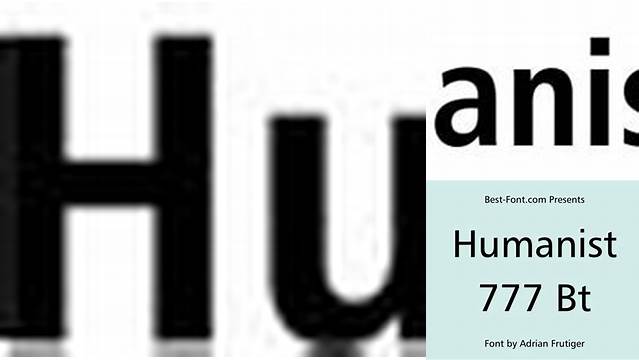
Understanding the Appeal of Humanist 777 Bold Condensed
The Humanist 777 Bold Condensed font isn't just another typeface; it's a statement. Its bold weight combined with a condensed structure gives it an immediate presence and impact. What makes it stand out is its humanist classification. Unlike more rigid, geometric sans-serifs, humanist fonts draw inspiration from handwriting, incorporating subtle variations in stroke width and more open letterforms. This results in a typeface that feels friendly, approachable, and highly readable, even in its boldest and most condensed forms. The '777' in its name often refers to a specific series or iteration, suggesting a refinement over time. When you're looking for a font that can command attention without feeling overly aggressive, or one that can pack a lot of text into a small space elegantly, this font is a serious contender. Its inherent warmth, a hallmark of humanist designs, ensures that even a bold, condensed style doesn't come across as cold or impersonal. This balance is crucial for branding, headlines, and any application where you need both impact and a touch of humanity. Think about logos, impactful posters, or even compelling website headers – the Humanist 777 Bold Condensed font is designed to deliver. Its condensed nature is a practical advantage, allowing for efficient use of space, which is a godsend in today's design landscape where every pixel and inch counts. So, before we even talk about downloading, it's worth appreciating the thoughtful design behind this particular font family. It's a well-crafted tool for designers seeking a specific aesthetic and functional benefit.
Why Choose a Bold Condensed Font Like Humanist 777?
Alright, let's talk specifics. Why would you, a savvy designer or content creator, opt for a bold condensed font like the Humanist 777? There are several compelling reasons, guys. Firstly, impact. Bold fonts, by definition, are designed to grab attention. When you combine that with a condensed form, you're essentially creating a visual powerhouse. It's perfect for headlines, subheadings, call-to-action buttons, or any text element that needs to stand out from the crowd. Imagine a busy magazine spread or a cluttered website – a bold condensed font cuts through the noise. Secondly, space efficiency. This is a big one! In a world where screen real estate is precious and print layouts need to be tight, condensed fonts are lifesavers. You can fit more information into a given width without sacrificing readability, or you can achieve a powerful, impactful look using less horizontal space. This is particularly useful for branding, where you might need a strong wordmark that doesn't dominate the entire logo area. Thirdly, modern aesthetic. Bold condensed fonts often convey a sense of modernity, urgency, and dynamism. They feel contemporary and can give your design a sharp, edgy feel. The Humanist 777, being a humanist font, brings a touch of refinement to this often stark aesthetic. It avoids the coldness that some purely geometric condensed fonts can exhibit. It strikes a balance between being assertive and being approachable. Think about its versatility – it can work for tech startups needing a strong visual identity, for event posters that need to convey excitement, or even for editorial design that aims for a sophisticated yet punchy feel. The inherent structure of a condensed font also lends itself to strong typographic hierarchies, making it easier for your audience to navigate through information. It's a functional choice as much as it is an aesthetic one, offering practical solutions for designers facing common layout challenges. The boldness ensures legibility from a distance, while the condensed nature allows for dense information display without overwhelming the viewer. It's a true workhorse font for many applications.
The Benefits of Humanist Typography
Now, let's unpack the 'humanist' part of the Humanist 777 Bold Condensed font. This is where the magic truly happens, guys. Humanist fonts are distinct because they are inspired by the calligraphy and handwriting of the past. Unlike the more geometric or mechanical sans-serifs, humanist typefaces possess a certain warmth and organic quality. You'll often notice subtle variations in stroke width, slightly irregular curves, and open apertures (the openings in letters like 'c' or 'e'). These characteristics make humanist fonts incredibly easy on the eyes. They feel more natural and less rigid, which translates to excellent readability, especially for longer texts. Even in a bold condensed format like Humanist 777, these humanist traits shine through. The boldness provides the necessary visual weight, while the condensed structure ensures efficiency, but the underlying humanist design keeps it from feeling sterile. This makes it a fantastic choice for branding that needs to be both strong and trustworthy, or for web design where user experience and readability are paramount. The openness of the letterforms aids legibility on screens, a crucial factor in digital design. Think about the feeling you get when reading a handwritten note versus a typed letter – there's an inherent connection in the handwritten form. Humanist fonts aim to capture some of that connection in a digital or printed medium. They bridge the gap between formal typography and the natural flow of human communication. This makes them particularly effective for brands that want to convey approachability, authenticity, and a personal touch. They often feel more sophisticated and less generic than some of their counterparts. The subtle nuances in their construction can add a layer of depth and character to your designs, making them feel more crafted and intentional. This is why many successful brands and publications return to humanist typefaces time and again – they offer a timeless appeal that resonates with audiences on a deeper level. The subtle irregularities prevent the eye from becoming bored, promoting sustained engagement with the text.
Best Practices for Using Bold Condensed Fonts
Alright, you've got your Humanist 777 Bold Condensed font, and you're ready to unleash its power. But how do you use it like a pro, guys? Let's talk best practices. First off, don't overdo it. Bold condensed fonts are attention-grabbers, so use them strategically. They're fantastic for headlines, subheadings, or short, impactful phrases. Think of them as your visual exclamation points. Using them for large blocks of body text is generally a no-go; they can become difficult to read and fatiguing for the eyes. The condensed nature means letters are packed closely together, and the boldness adds even more visual density. For body copy, opt for a lighter weight and a more standard width from the same font family if available, or choose a complementary, highly readable typeface. Secondly, establish hierarchy. This font is perfect for creating strong typographic hierarchy. Use its bold, condensed nature for your main titles and headings to draw the reader in. Then, use lighter weights, different styles, or even a completely different but compatible font for supporting text. This contrast helps guide the reader's eye through your content logically. Thirdly, consider the context. Where will this font be seen? On a giant billboard? A tiny mobile app notification? A sleek website header? Its effectiveness changes with scale and medium. The Humanist 777 Bold Condensed font works wonders for print headers, posters, and digital banners where its impact can be fully appreciated. For smaller screens or less critical text, you might need to be more judicious. Always test your design at different sizes to ensure legibility and aesthetic balance. Finally, pair it wisely. This font can be quite dominant. Pair it with simpler, more neutral fonts for body text to let it shine without creating visual chaos. A clean, legible sans-serif or even a classic serif could work well as a companion. Avoid pairing it with other overly decorative or bold fonts, as this can lead to a cluttered and unprofessional look. Remember, the goal is impact and clarity, not a visual shouting match. Use its power judiciously, and you'll elevate your designs significantly.
Pairing Humanist 777 Bold Condensed with Other Fonts
Okay, so you've got this powerhouse font, the Humanist 777 Bold Condensed, and you're wondering what other fonts can play nice with it, right guys? This is crucial because a dominant font like this needs a good supporting cast. The general rule of thumb is to pair it with something that offers contrast but complements its inherent characteristics. Since Humanist 777 is bold and condensed, you'll want to look for fonts that are typically lighter in weight and perhaps wider or have a more standard width. This creates a pleasing visual hierarchy and prevents your design from feeling too cramped or heavy. A great option would be a clean, legible sans-serif font with a lighter weight. Think of fonts like Open Sans Light, Lato Regular, or Montserrat Light. These provide excellent readability for body text and don't compete with the boldness of Humanist 777. They offer a calm counterpoint to the font's strong presence. Another solid choice is a classic serif font. A well-chosen serif can add a touch of elegance and sophistication, grounding the modern feel of the bold condensed sans-serif. Consider pairings with fonts like Merriweather, Georgia, or even a classic like Garamond (in a lighter weight, of course). The contrast between sans-serif and serif can be very effective in creating visual interest and establishing clear distinctions between headlines and body copy. When selecting your pairing font, always consider the overall mood and purpose of your design. If you're going for a modern, techy vibe, stick with clean sans-serifs. If you're aiming for a more traditional or editorial feel, a serif might be the better choice. Crucially, ensure the x-heights and ascender/descender proportions work harmoniously. You don't want a pairing where one font looks dwarfed or disproportionately tall compared to the other. Test, test, test! View your pairings at actual size and in context to see how they interact. The goal is for Humanist 777 Bold Condensed to make a statement, while its partner provides clarity and readability, ensuring your message gets across effectively and elegantly. It's all about finding that sweet spot of balance and contrast.
Creative Applications of Humanist 777 Bold Condensed
So, where can you sprinkle this awesome Humanist 777 Bold Condensed font to make your designs pop, guys? The possibilities are pretty vast! Let's brainstorm some creative applications. Logos and Branding: This font is a natural fit for creating strong, memorable logos. Its bold, condensed nature means it can make a big impact even in small sizes, perfect for app icons or favicons. For brands that want to project confidence, modernity, and a touch of sophistication, this font is a winner. Think tech startups, financial institutions, or even high-end fashion labels that want a strong typographic mark. Headline Design: Obviously, headlines are its bread and butter. Use it for website banners, magazine covers, newspaper headlines, or any place you need immediate visual punch. Its condensed form allows you to fit impactful headlines into tight spaces, which is a lifesaver for editorial design. Poster and Flyer Design: Need to grab attention from across the room? This font is your go-to. It’s perfect for event posters, concert flyers, or promotional materials where you need to convey energy and excitement quickly. Its boldness ensures your key message is seen. Packaging Design: For product packaging, especially for bold consumer goods or items that need a strong shelf presence, Humanist 777 Bold Condensed can provide that striking visual element. It can work well for specific product names or feature call-outs. App UI Elements: In user interfaces, especially for buttons, navigation elements, or status indicators where space is limited and clarity is key, this font can be incredibly effective. Its bold weight ensures readability even on smaller screens, while its condensed form saves precious UI real estate. Infographics and Data Visualization: While not ideal for extensive body text, it can be used effectively for titles, labels, and key data points within infographics to draw attention to critical information. Its structured appearance lends itself well to presenting data clearly. Social Media Graphics: Create eye-catching social media posts with bold headlines and calls to action using this font. It can help your content stand out in a crowded feed. The key is to use it where you need impact and legibility in a compact form. It’s a versatile tool that, when used thoughtfully, can significantly enhance the visual appeal and effectiveness of your designs across a wide range of media. Just remember its strengths: boldness and condensed form, and apply it where those attributes will have the most impact.
The Impact of Boldness in Typography
Let's talk about boldness in typography, specifically concerning the Humanist 777 Bold Condensed font, guys. When we talk about bold weight, we're essentially referring to the thickness of the strokes that make up the letterforms. A bold font is significantly thicker than its regular or light counterparts. This increased weight serves a very specific purpose: to create emphasis and draw the reader's attention. Think of it as the typographic equivalent of shouting – not in an obnoxious way, but in a way that commands notice. The impact of boldness is multifaceted. Firstly, it enhances readability in certain contexts. While a very light font might be elegant, it can be hard to read, especially on lower-resolution screens or from a distance. A bold font, on the other hand, has more visual presence, making the letters clearer and more distinct. This is why bold is often used for headlines, subheadings, and important keywords within a text – it tells the reader, "Hey, pay attention to this part!" Secondly, boldness adds visual weight and impact to a design. A layout composed entirely of regular or light fonts can sometimes feel a bit flat. Introducing bold elements, like the Humanist 777 Bold Condensed, injects energy and dynamism into the composition. It creates contrast and helps establish a clear visual hierarchy, guiding the user's eye through the information. Thirdly, boldness can convey strength, authority, and seriousness. Depending on the typeface, a bold font can feel robust, dependable, and assertive. The Humanist 777, being a humanist font, balances this strength with a degree of warmth, preventing it from feeling overly aggressive. The combination of boldness and the condensed nature further amplifies this impact, making it incredibly effective for applications where a strong, clear message is paramount. However, it's important to use boldness judiciously. Overuse can lead to a design that feels overwhelming, aggressive, and difficult to digest. Like using a loud voice in a quiet library, too much boldness can be counterproductive. The skill lies in using its power strategically to highlight key information and create a compelling visual narrative. It's a powerful tool in your typographic arsenal.
Exploring the Condensed Nature of Typefaces
Now, let's zero in on the 'condensed' aspect of the Humanist 777 Bold Condensed font, guys. What does 'condensed' actually mean in the world of typography? Simply put, it means the letterforms are narrower, or 'squashed', compared to their standard counterparts. This is different from 'narrow', which might imply a font designed from the ground up with narrow proportions, whereas 'condensed' often refers to a specific variation within a font family. The primary benefit of a condensed typeface is space efficiency. In today's design world, where every pixel and every inch matters, condensed fonts are invaluable. They allow you to fit more text into a smaller horizontal space without sacrificing legibility as dramatically as simply shrinking a standard-width font would. This makes them ideal for headlines, particularly in print media like newspapers and magazines where space is often at a premium. Think about fitting a long headline into a narrow column – a condensed font makes this possible. On websites and apps, condensed fonts can be used for navigation bars, sidebars, or other areas where horizontal space is limited. They can also be used purely for aesthetic reasons. A row of condensed letters can create a strong, linear, and impactful visual effect, often used in titling or branding to convey a sense of speed, modernity, or urgency. However, there's a caveat. Highly condensed fonts, especially when combined with boldness, can become challenging to read in large quantities. The tight spacing between letters (kerning) and the narrow forms can lead to visual fatigue if used for body text. That's why fonts like Humanist 777 Bold Condensed are best reserved for display purposes – headlines, titles, short bursts of text where their unique characteristics can be appreciated without hindering readability. The 'condensed' quality, combined with the 'bold' weight, creates a font that is both commanding and economical with space. It's a deliberate design choice that offers significant functional and aesthetic advantages when applied correctly. It’s a powerful tool for making a statement in a confined area.
Understanding Font Licensing: Free vs. Commercial Use
This is super important, guys, especially when you're looking for that Humanist 777 Bold Condensed font free download. Not all free downloads are created equal! Understanding font licensing is key to avoiding legal trouble and respecting the work of type designers. Broadly, fonts fall into categories based on their licensing: Free for Personal Use: This is common. You can download and use these fonts for your personal projects – think your blog, your social media posts for fun, or school assignments. However, using them for a business, a client project, or anything that generates revenue is typically prohibited. Free for Commercial Use: These are golden! Fonts licensed for commercial use can be used in almost any project, including logos, websites, marketing materials, and products for sale. Often, foundries offer a selection of these for free to showcase their work or for promotional purposes. Commercial Fonts (Paid): Most high-quality, professional fonts require a purchase. Licenses vary – you might pay for a desktop license (for use on a specific number of computers), a webfont license (for use on a website), an app license, or an e-pub license. These are typically the most robust and come with full support. When you find a 'free download': Always check the license. Look for a file named license.txt or readme.txt within the font download. Check the font's page on the foundry's website or the download site (like Font Squirrel, DaFont, etc.). If it just says 'free', assume it's for personal use only unless explicitly stated otherwise. Sites like Font Squirrel are great because they often filter for commercially usable fonts, but it's still wise to double-check the source foundry's license. Using a font commercially without the proper license is copyright infringement. It can lead to hefty fines and damage your reputation. So, before you dive into using that Humanist 777 Bold Condensed on your new business venture's website, make sure you've got the green light from the license. If it's only free for personal use, consider purchasing a commercial license or finding an alternative font that is free for commercial use. It's a small price to pay for peace of mind and ethical design.
Alternative Bold Condensed Fonts You Might Like
Okay, so maybe you're hunting for that Humanist 777 Bold Condensed font free download, but you're also open to exploring other cool options, right guys? Sometimes, the exact font you're looking for isn't available for free, or maybe you just want a few more tricks up your sleeve. Luckily, the world of bold condensed fonts is vast and exciting! Here are a few alternatives that offer a similar vibe and might be available for free or have affordable commercial licenses: Oswald: This is a super popular, versatile, and robust bold condensed sans-serif that's readily available on Google Fonts – totally free for commercial use! It has a slightly more utilitarian feel than a humanist font but offers excellent readability and impact for headlines and short texts. Bebas Neue: Another classic on the free font scene, Bebas Neue is a favorite for its clean lines and strong, condensed appearance. It's purely a display font, meaning it's best for headlines and titles, and it's free for commercial use. It has a slightly more geometric feel. League Gothic: Hailing from The League of Movable Type, League Gothic is a bold, condensed, and condensed version of an old-style serif typeface, reimagined as a sans-serif. It’s tall, condensed, and has a lot of personality, making it great for impactful headlines. It's also free for commercial use. Anton: Available on Google Fonts, Anton is a very bold and condensed display font. It’s designed for impact and works great for headlines that need to make a statement. It offers a similar level of punch to Humanist 777. Montserrat: While Montserrat offers a wide range of weights and widths, its bolder, condensed variants can also serve a similar purpose. It's a geometric sans-serif that's very popular and available on Google Fonts. If you need something a bit more versatile but still capable of bold, condensed statements, Montserrat is worth a look. When exploring these, always remember to check their specific licenses, just like we discussed. Some might be purely display fonts, meaning they aren't ideal for longer texts, but they excel at grabbing attention. Experimenting with different bold condensed fonts can help you discover new favorites and build a diverse typographic toolkit. Happy font hunting!
Typography Trends and Bold Condensed Fonts
Let's chat about how bold condensed fonts, like our friend the Humanist 777 Bold Condensed, fit into the ever-shifting landscape of typography trends, guys. Typography is cyclical, and right now, we're seeing a resurgence and evolution of styles that embrace boldness and strong forms. For a while, minimalist, ultra-light typefaces were king. But the pendulum is swinging back, and designers are increasingly drawn to typefaces that make a statement. Bold and impactful fonts are back in vogue, often used to convey confidence, urgency, or a retro feel. Condensed styles, in particular, are having a moment. They offer a sleek, modern aesthetic that feels both sophisticated and efficient. This combination – bold and condensed – hits a sweet spot. It allows designers to pack a visual punch while maintaining a relatively clean and structured appearance. Think about its use in digital interfaces. As screen sizes vary and the demand for engaging mobile experiences grows, condensed fonts help optimize layouts without sacrificing visual hierarchy. They fit well into compact navigation bars, allow for denser information displays in apps, and make headlines pop on smaller screens. In branding, bold condensed fonts are often chosen to project a sense of authority, innovation, or dynamism. They feel contemporary and assertive, which is perfect for many startups and forward-thinking companies. However, it's not just about looking modern. There's also a strong retro influence. Many bold condensed fonts evoke the feel of vintage advertising, movie posters, or industrial signage. This nostalgia factor is a significant trend, and fonts like Humanist 777, with its humanist undertones, can add a touch of warmth to this otherwise stark aesthetic, making it feel more approachable than a purely geometric condensed font. The key takeaway is that bold condensed fonts aren't just a niche choice anymore; they are a versatile and relevant tool for contemporary design, offering both aesthetic appeal and functional benefits that align perfectly with current trends. They offer a way to be both loud and refined simultaneously.
Ensuring Readability with Condensed Typefaces
Okay, guys, we know Humanist 777 Bold Condensed is striking, but how do we make sure it's actually readable? That's the million-dollar question when working with condensed typefaces. The inherent nature of condensed fonts means letters are packed tighter horizontally, and when you add boldness, that density increases. So, the key is strategic application and careful pairing. Limit Body Text Usage: This is rule number one. Condensed fonts, especially bold ones, are generally not suitable for long paragraphs of body copy. They can cause eye strain and fatigue. Reserve them for headlines, subheadings, labels, or short, impactful statements where the reader only needs to digest a few words or a short phrase. Leverage Whitespace: Generous use of whitespace (or negative space) around your text is crucial when using condensed fonts. Giving the text room to breathe prevents it from feeling claustrophobic and helps the eye track more easily. Don't cram your headlines or titles together; let the surrounding space define them. Choose the Right Weight and Style: While we're focusing on bold condensed, remember that most font families offer a spectrum of weights. If the bold version feels too dense, consider if a regular or even light weight in the condensed style offers better legibility for your specific use case, while still maintaining a compact form. Sometimes, a less bold condensed font is more readable. Test at Different Sizes: What looks legible on a large monitor might become a blurry mess on a small mobile screen. Always test your design at the intended sizes. Zoom in and out. Read it from a typical viewing distance. Ensure that the key features of the letters (like the difference between 'i' and 'l', or 'o' and 'c') remain distinct. Consider the Counter Forms: Humanist fonts, like Humanist 777, often have slightly larger 'apertures' (openings in letters like 'c', 'e', 'a') and more open counter forms (the enclosed spaces like in 'o' or 'p'). These features can significantly improve the readability of condensed typefaces by making the letter shapes clearer. This is a key advantage of the humanist style. Pairing is Paramount: As we've discussed, pairing your bold condensed font with a more readable, standard-width font for body text is essential. This contrast creates a clear distinction and allows the reader's eyes to rest on the body copy, while the headline commands attention. By following these guidelines, you can harness the power and efficiency of the Humanist 777 Bold Condensed font without sacrificing the clarity and accessibility of your message. It's all about balance and understanding the strengths and weaknesses of the typeface.
The History and Evolution of Humanist Fonts
Let's take a little detour and explore the fascinating history behind Humanist fonts, the category our Humanist 777 Bold Condensed font belongs to, guys. Understanding their origins helps appreciate their unique qualities. Humanist fonts, also known as Garalde or Aldine typefaces, emerged during the Italian Renaissance, around the 15th century. They were a significant departure from the Gothic (Blackletter) scripts that dominated Europe at the time. The pioneers, like Nicolas Jenson and later Aldus Manutius in Venice, were inspired by the Carolingian Minuscule script, a form of handwriting used during the reign of Charlemagne. This script was rounder, more open, and significantly easier to read than the dense, angular Blackletter. The goal was to bring clarity and legibility back to the printed word, making classical texts accessible to a wider audience. Typefaces based on Roman square capitals and Roman minuscule script formed the basis of these early humanist fonts. Key characteristics that defined these early humanist types included: Rounded forms: Softer, more organic shapes compared to geometric or gothic styles. Contrast in stroke width: A noticeable difference between thick and thin strokes, reflecting the pressure of a pen nib. Slightly slanted ascenders: The parts of letters like 'h', 'd', 'b' that extend upwards often had a slight tilt. Open apertures: The openings in letters like 'c', 'e', 'a', 's' were relatively wide, aiding readability. Over centuries, these characteristics evolved. The sans-serif movement of the 19th and 20th centuries saw many designers move away from serifs altogether, but the spirit of humanist design – that focus on clarity, warmth, and readability – persisted. This led to the development of humanist sans-serifs. These fonts retain the open forms, variable stroke widths (though often more subtle than in serifed versions), and calligraphic influences of their serifed ancestors, but without the serifs. Examples include Johnston (used for the London Underground) and Frutiger. The Humanist 777 Bold Condensed font fits within this broad tradition. While its bold and condensed nature pushes the boundaries of traditional humanist legibility for extensive text, its underlying design principles likely stem from this lineage of clarity, warmth, and human touch. It represents a modern interpretation, adapting classic humanist values to contemporary design needs for impact and efficiency. It’s a bridge between historical readability and modern boldness.
The Psychology of Fonts: How Type Affects Emotion
Ever thought about how a font can make you feel, guys? It’s not just about aesthetics; typography has a profound psychological impact. The Humanist 777 Bold Condensed font, with its specific characteristics, evokes certain emotions and perceptions. Let's break it down. Boldness: As we've touched on, boldness conveys strength, confidence, authority, and importance. It grabs attention and signals that the information is significant. Psychologically, it can create a sense of urgency or excitement. Think of a sale sign – the bold font makes you feel like you need to act now. For Humanist 777, this translates to a feeling of power and assertiveness. Condensed Form: The narrowness of condensed fonts can sometimes feel sharp, efficient, and modern. It can convey a sense of speed or precision. In some contexts, it might feel a bit formal or even slightly tense due to the compression. However, when combined with humanist qualities, this tension can be softened, creating a feeling of focused energy rather than anxiety. Humanist Qualities: This is where the warmth comes in. Humanist fonts, with their organic, often slightly irregular shapes inspired by handwriting, tend to feel more approachable, friendly, and trustworthy. They evoke a sense of the personal touch, making the message feel more relatable and less sterile. So, what does the combination in Humanist 777 Bold Condensed suggest? It's a fascinating blend. You get the strength and importance of the bold weight, the efficiency and modernity of the condensed form, all softened by the approachability and warmth of its humanist roots. This makes it a font that can feel both powerful and reliable. It’s assertive without being aggressive. It’s modern without being cold. It’s impactful yet retains a degree of friendliness. This psychological profile makes it suitable for brands that want to project confidence and professionalism but also want to connect with their audience on a more human level. It can make a serious message feel accessible, or a friendly message feel impactful. It’s a font that tells a story of balanced power and approachability, influencing the reader's perception of the message and the brand behind it.
Designing with Impact: When to Use Bold Condensed
Let's get down to the nitty-gritty: when should you actually deploy the Humanist 777 Bold Condensed font for maximum impact, guys? This isn't a font for every occasion, but when used correctly, it’s a showstopper. Primary Headlines: This is its prime territory. Think website hero sections, magazine covers, book titles, and ad headlines. Use it when you need the title to be the undeniable focal point, demanding immediate attention. Its boldness and condensed nature ensure it cuts through visual clutter. Key Call-to-Actions (CTAs): Need users to click a button or sign up? A bold condensed font can make that CTA more prominent and urgent. Use it for button text or important prompts where you want to drive action. Branding and Logos: As mentioned before, its strong, compact form makes it excellent for logos, especially for brands aiming for a modern, assertive, or sophisticated identity. It works well where space is limited, like on product labels or app icons. Event Promotions: Posters, flyers, and social media graphics for events often benefit from a font that screams 'look here!'. Humanist 777 Bold Condensed can convey excitement and importance, making your event details unmissable. Short, Punchy Statements: Quotes, taglines, or short announcements that need to land with force are perfect candidates. Its condensed nature allows you to pack a lot of meaning into a small space, and the boldness ensures it's not missed. Where NOT to Use It: Avoid using it for extensive body text (paragraphs, articles). It will be unreadable and exhausting. Also, be cautious in highly conservative or ultra-minimalist designs where its strong personality might clash. It's a font with a distinct voice, so ensure that voice aligns with your message. The goal is to use its impactful nature to your advantage, drawing the eye and conveying your message with confidence and efficiency. It’s about making a deliberate, strong statement when it counts the most. Don't be shy, but be smart!
Technical Aspects: Font Files and Installation
Alright, let's get practical for a sec, guys. You've found that sweet Humanist 777 Bold Condensed font free download, or maybe you've purchased a commercial license. Now what? How do you actually use it in your design software? It all comes down to font files and installation. Font File Types: You'll typically encounter a few common font file formats: .otf (OpenType Font): This is often preferred by designers. OpenType fonts can contain more sophisticated typographic features (like alternate characters, ligatures, etc.) and work across both Mac and Windows. .ttf (TrueType Font): This is another common format, widely compatible across operating systems. It's generally reliable for most uses. .woff / .woff2 (Web Open Font Format): These are specifically designed for web use. If you're implementing the font on a website, you'll need these formats. They are compressed for faster loading. Installation Process: The installation process is usually quite straightforward: On Windows: 1. Download the font file(s). 2. Right-click on the font file (or select multiple files and right-click). 3. Choose 'Install' or 'Install for all users'. The font will be added to your system. On Mac: 1. Download the font file(s). 2. Double-click the font file. 3. A font preview window will open. Click 'Install Font'. The font will be added to your Font Book application. Using the Font in Software: Once installed, the font should appear in the font menu of your design applications (like Adobe Photoshop, Illustrator, InDesign, Microsoft Word, Google Docs, etc.). Simply select 'Humanist 777 Bold Condensed' (or the exact name it's listed under) from the font list, and you're good to go! Troubleshooting: If the font doesn't appear immediately, try restarting your design application or even your computer. Sometimes, corrupted font files can cause issues, so try re-downloading from the source if problems persist. Ensure you're installing the correct format for your operating system. Understanding these technical aspects ensures a smooth transition from finding a font to actually using it effectively in your creative workflow. It’s the final step to bringing your design vision to life!
The Humanist '777' Designation: What Does it Mean?
Let's dive a bit deeper into the name: Humanist 777 Bold Condensed font. What's with the '777', guys? This number isn't arbitrary; it usually indicates a specific version, family, or series within a larger font system. Font designers and foundries often create multiple iterations or updates of a typeface to refine its design, improve its technical qualities, or expand its character set. The numbers or alphanumeric codes are used to distinguish between these different versions. For example, a foundry might release version 1.0, then later release a significantly updated version 2.0. Or, a particular style within a large family might get a unique identifier. In the case of '777', it suggests that this particular iteration of the Humanist font has undergone some development or refinement. It could imply it's the third major revision (following a '77' or similar) or simply a specific designation chosen by the designer or foundry. Sometimes, these numbers are part of a more complex cataloging system. It’s less about a deep historical meaning and more about organizational clarity for the foundry and users. For us as designers looking for a Humanist 777 Bold Condensed font free download, knowing this means that if you encounter 'Humanist 777' in a different weight or style (like italic or regular), it likely shares the same core design DNA. It implies a certain level of established design and potential polish. It’s good to know that the '777' isn't just random; it signifies a specific iteration of a design, hinting at its place within a potentially larger and more developed type family. This helps in ensuring consistency if you're using multiple weights or styles from the same '777' series. It's a technical detail that adds a layer of specificity to the font's identity and its place in the typographer's toolkit.
Accessibility and Legibility in Design Choices
When choosing any font, including the Humanist 777 Bold Condensed, accessibility and legibility should always be top of mind, guys. While this font excels in impact, we need to ensure it doesn't exclude anyone or make information hard to access. Legibility Factors: Legibility refers to how easily individual letters can be distinguished from one another. Factors that influence legibility include the clarity of letterforms, the spacing between them (kerning), and the overall design of the typeface. Humanist fonts, with their open apertures and clear forms, generally score well here, even in condensed and bold weights, as discussed. However, extreme condensation can sometimes blur distinctions between similar characters (like 'n' and 'm'). Accessibility Considerations: Accessibility (often abbreviated as a11y) is about making sure people with disabilities can perceive, understand, navigate, and interact with your content. For typography, this means: Contrast: Ensure sufficient contrast between the text color and the background color. WCAG (Web Content Accessibility Guidelines) provides standards for this. A bold font inherently has good contrast against a background, but the color contrast is separate and vital. Avoid Overly Decorative Fonts for Key Info: While Humanist 777 Bold Condensed has personality, it's generally legible enough for headlines. However, for critical information or body text, simpler, highly readable fonts are always preferred. Consider Users with Visual Impairments: These users rely heavily on clear typography. Ensure your chosen fonts, especially when used for extended reading, are unambiguous and can be scaled effectively without loss of quality or clarity. Responsive Design: Fonts must render correctly and remain legible across various devices and screen sizes. The condensed nature of Humanist 777 can be an advantage here for fitting text into smaller spaces, but testing is crucial. The Balance: The Humanist 777 Bold Condensed font can be a great tool for grabbing attention accessibly – for headlines, buttons, and key information. Its humanist design aids legibility. However, always pair it thoughtfully with highly accessible body fonts and maintain proper color contrast. Accessibility isn't an afterthought; it's integral to good design. Choosing fonts like this means understanding their strengths for impact while ensuring they don't compromise the overall clarity and inclusivity of your message. It's about making a bold statement that everyone can read.
Case Study: Successful Branding with Bold Condensed Fonts
Let's look at some real-world examples, guys, to see how bold condensed fonts have been used successfully in branding. These case studies show the power and versatility of this style, often featuring fonts with characteristics similar to Humanist 777 Bold Condensed. 1. Zappos: The online shoe and clothing retailer Zappos uses a custom wordmark that, while not strictly humanist, employs a bold, slightly condensed sans-serif. It conveys a sense of energy, efficiency, and modernity – perfect for an e-commerce platform focused on fast shipping and customer service. The boldness makes the brand name instantly recognizable. 2. TheEconomist: This renowned publication uses a distinctive serif font for its masthead, but frequently employs bold sans-serifs, often condensed, for headlines and subheadings within its articles and online presence. This creates a sophisticated yet direct and impactful typographic hierarchy, guiding the reader through complex information. The condensed style allows for more headlines on a page or screen without feeling cluttered. 3. CNN: Cable News Network utilizes bold, condensed sans-serif fonts extensively in its on-screen graphics and headlines. This is crucial for a news organization where information needs to be conveyed quickly, clearly, and with authority. The boldness signifies importance, and the condensation allows for fitting more information into the limited space of a TV screen or web banner. 4. Local Breweries/Craft Brands: Many craft breweries and artisanal brands opt for bold, condensed fonts – sometimes with a retro or industrial feel – for their logos and packaging. This style communicates strength, authenticity, and a no-nonsense attitude that resonates with consumers looking for high-quality, handcrafted products. It gives the product a strong shelf presence. 5. Tech Startups: Numerous tech companies use bold condensed fonts in their branding to project innovation, speed, and a cutting-edge image. The clean lines and impactful presence of these fonts align well with the often disruptive nature of the tech industry. These examples highlight how bold condensed fonts, whether humanist or more geometric, can be leveraged to build strong brand identities. They effectively communicate key attributes like confidence, efficiency, modernity, and authority. The success lies in applying them strategically to headlines, logos, and key messaging where impact is paramount, while ensuring they are paired appropriately for overall readability. It’s proof that making a bold statement can be incredibly effective.
Comparing Humanist 777 to Geometric Sans-Serifs
Alright, let's get a bit technical and compare our star, the Humanist 777 Bold Condensed font, to its cousin, the geometric sans-serif, guys. Understanding the difference helps you choose the right tool for the job. Humanist Sans-Serifs (like Humanist 777): Inspiration: Based on handwriting and Roman proportions. Characteristics: Variable stroke widths (often subtle), open apertures (like in 'c', 'e'), slightly irregular shapes, larger x-heights relative to cap height. Feel: Warm, friendly, approachable, highly readable, organic. Best For: Body text (in regular weights), headlines where warmth is desired, branding that seeks trustworthiness. Geometric Sans-Serifs (e.g., Futura, Avenir, Gotham): Inspiration: Based on simple geometric shapes like circles, squares, and triangles. Characteristics: Uniform stroke width (monolinear), circular 'o's, sharp, precise forms, often tighter apertures. Feel: Modern, clean, neutral, objective, sometimes perceived as colder or more rigid. Best For: Headlines, branding demanding a minimalist or futuristic look, signage. The Humanist 777 Bold Condensed in this context: Its humanist roots mean that even in its bold and condensed form, it likely retains a degree of warmth and clarity in its letterforms that a geometric sans-serif might lack. A geometric bold condensed font (like Futura Bold Condensed) might feel very sharp, precise, and perhaps a bit stark. Humanist 777, conversely, might feel slightly softer or more